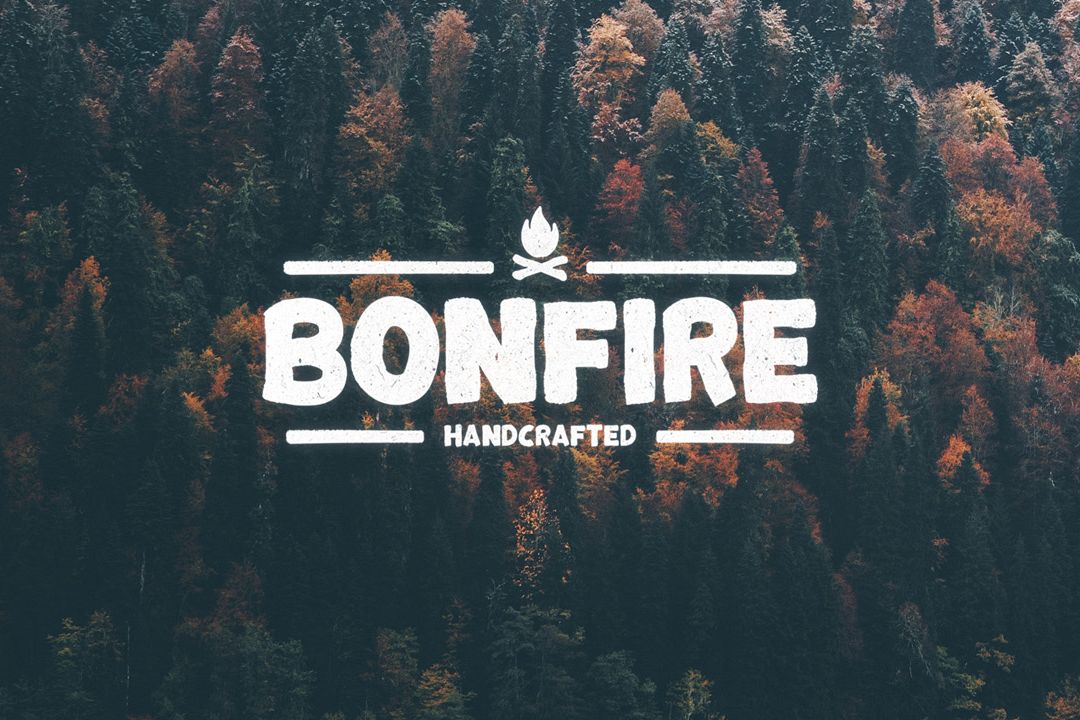
Bonfire Typeface
Bonfire Regular
Bonfire Rough
Bonfire Extras
Bonfire is a big, bold handmade font in regular and rough styles. It includes English uppercase letters, numbers and punctuation.
Bonfire also includes camping and nature related vectors.